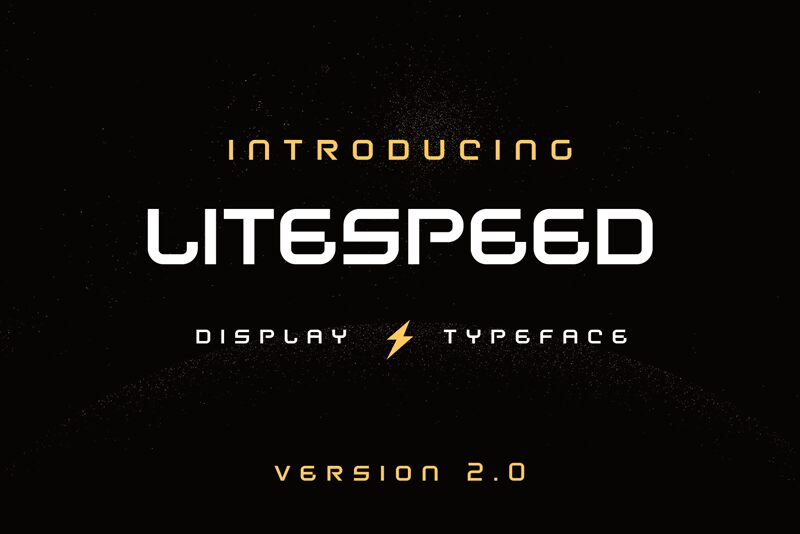
Litespeed font
Litespeed
Tiago Sá
Litespeed is a futuristic geometric typeface that boasts a bold, technical appearance.
This free font is ideal for logos, headlines, titles, and display purposes.
It includes two styles: Bold and Bold Italic.